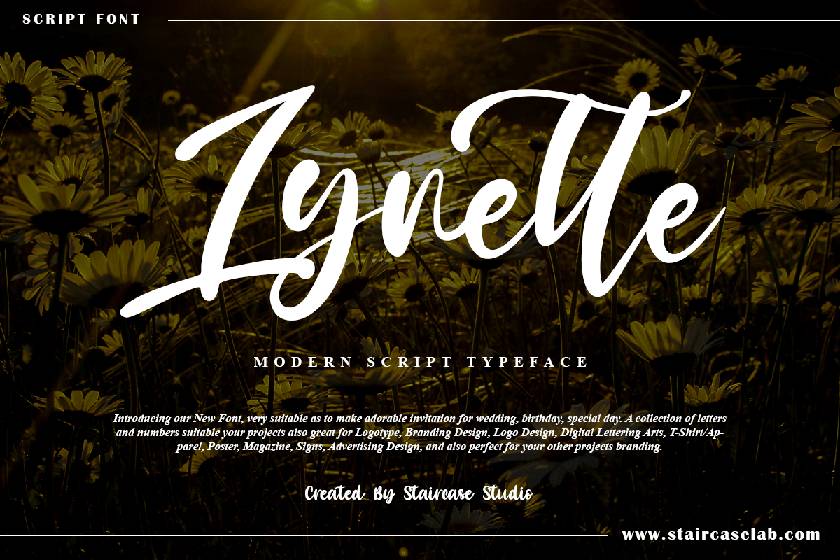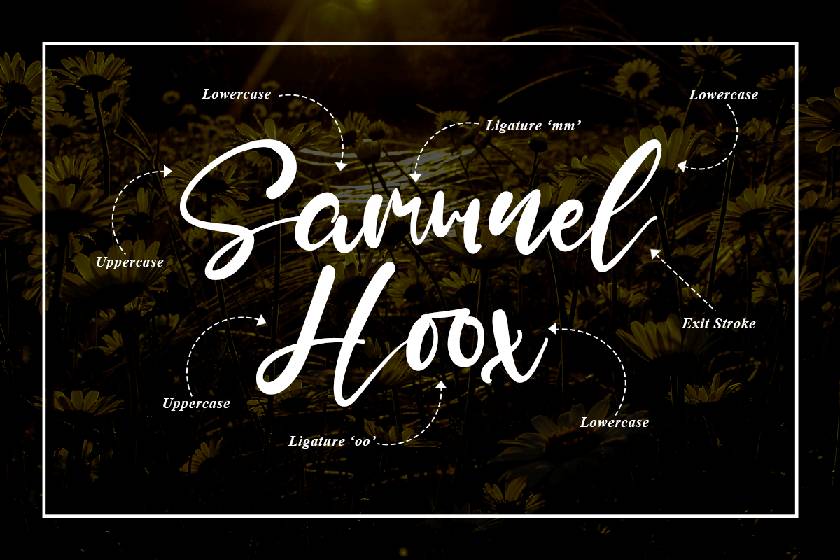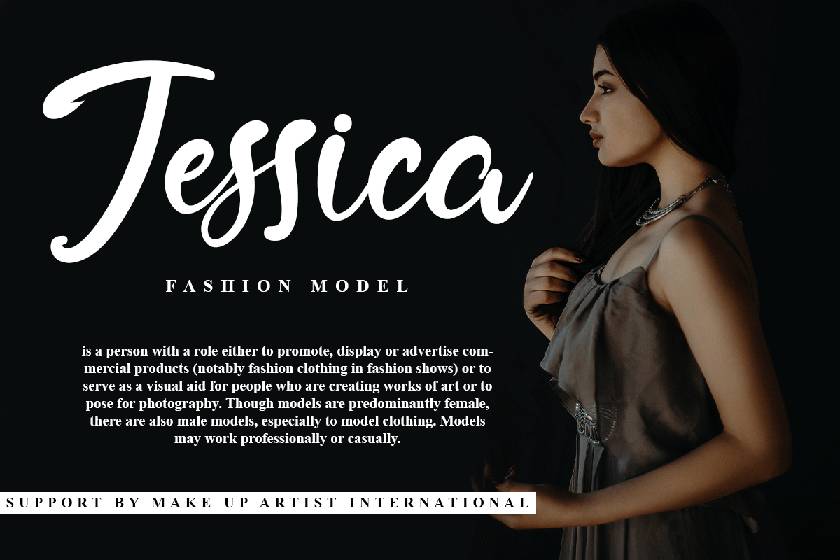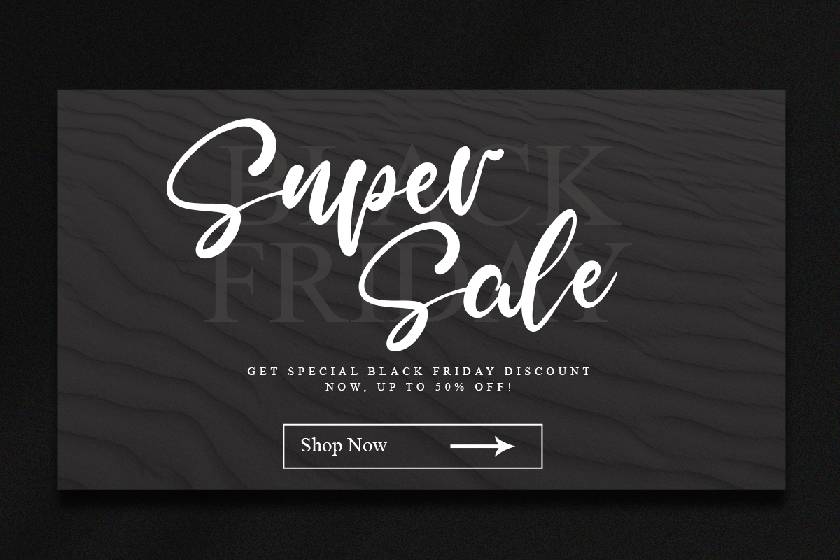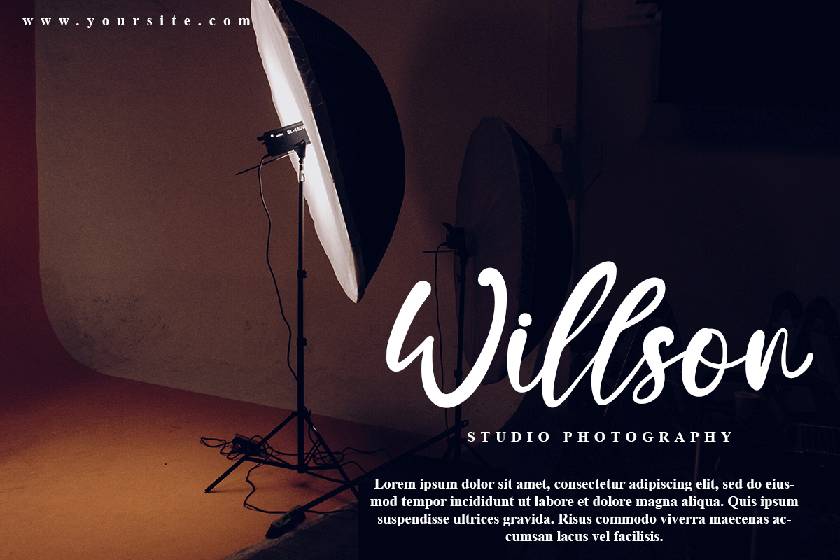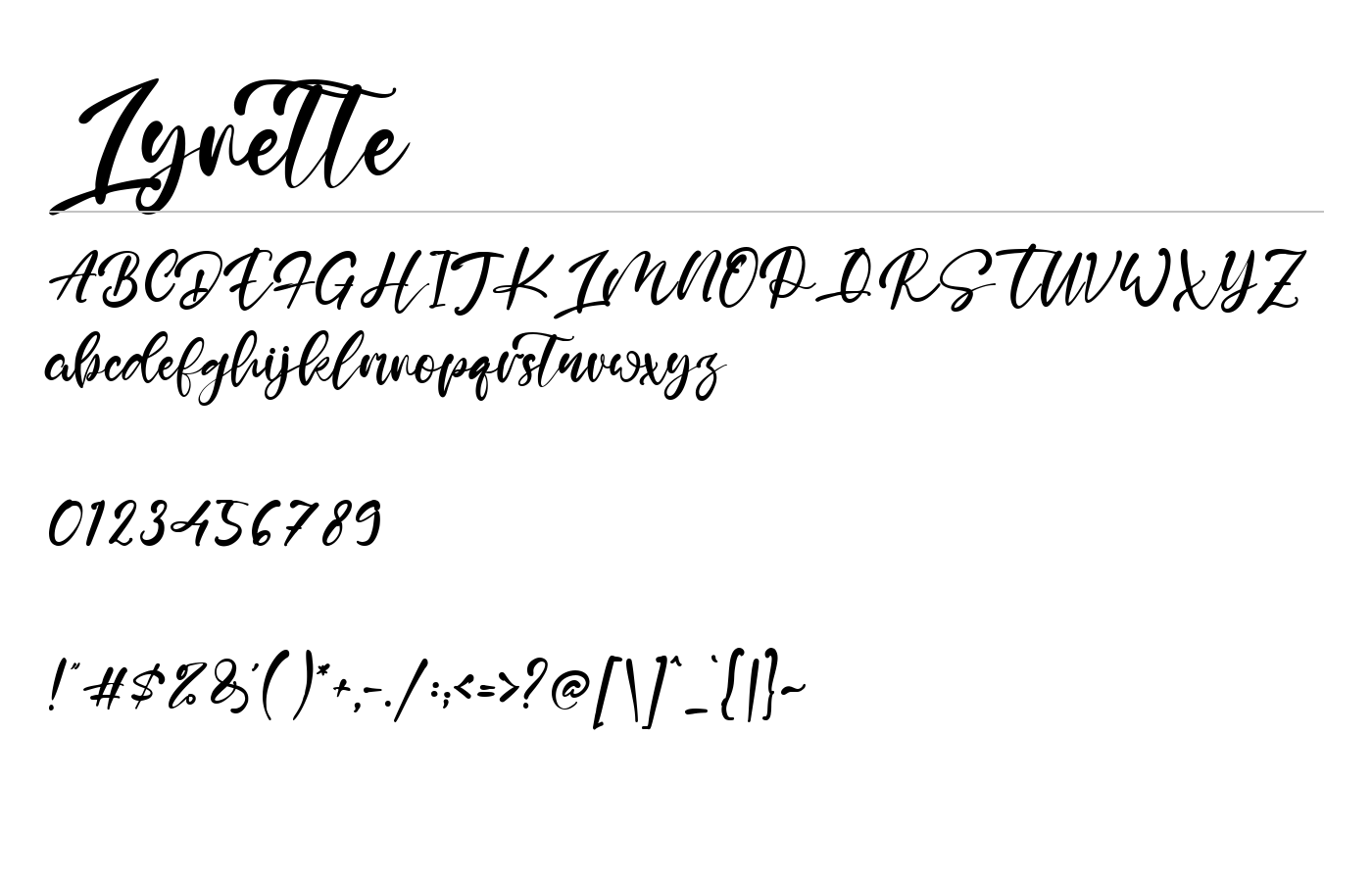
Lynette is an elegant, flowing script font that combines a casual handwritten feel with graceful, refined strokes. Its moderately high contrast and smooth curves give it a stylish and approachable personality, making it ideal for invitations, branding, and editorial designs that seek a friendly yet sophisticated touch. This font works beautifully in headlines and logos where a personal, artistic flair is desired.
Lynette Font
About Lynette Font
| Font family | Lynette Font |
| Release date | 2021-11-25 |
| Designer | Staircase Studio |